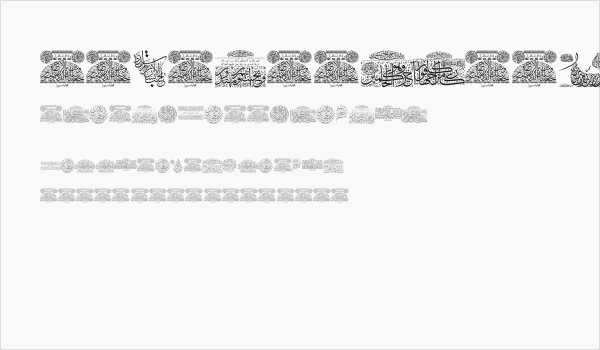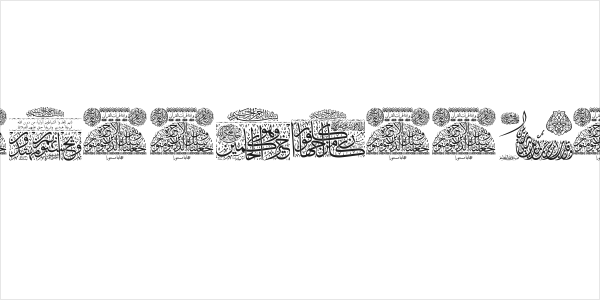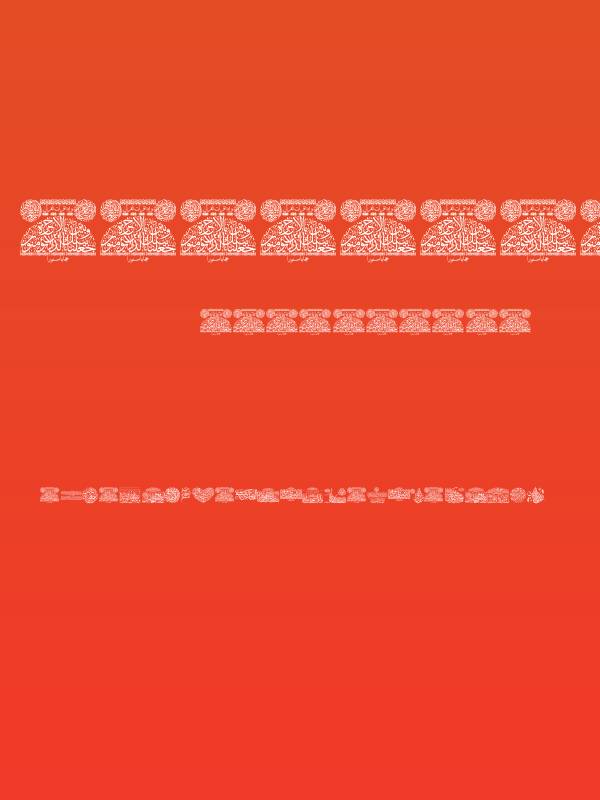
Aayat Quraan_035 Font
Aayat Quraan_035 Description
Highly ornamental Arabic script with intricate calligraphic flourishes and dense, decorative detailing. The glyphs are complex, with many ligatures and artistic embellishments, making each character appear as a unique piece of art. The script is traditional and visually rich, often used for religious or ceremonial purposes.
| Overall Style | Traditional, Ornamental, Religious |
| Use Case | Decorative headings, religious texts, art pieces, ceremonial documents |
| Proposed Projects | Religious manuscripts, ceremonial documents, Islamic art, decorative panels, cultural branding. |